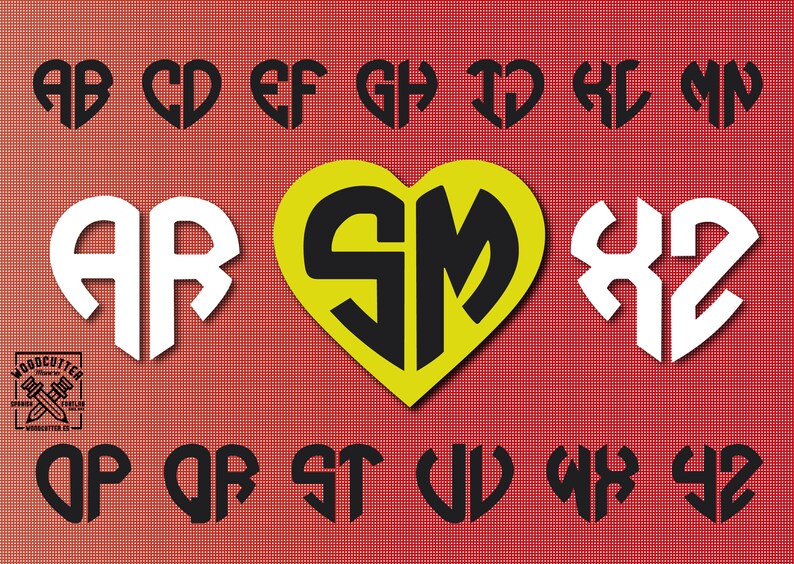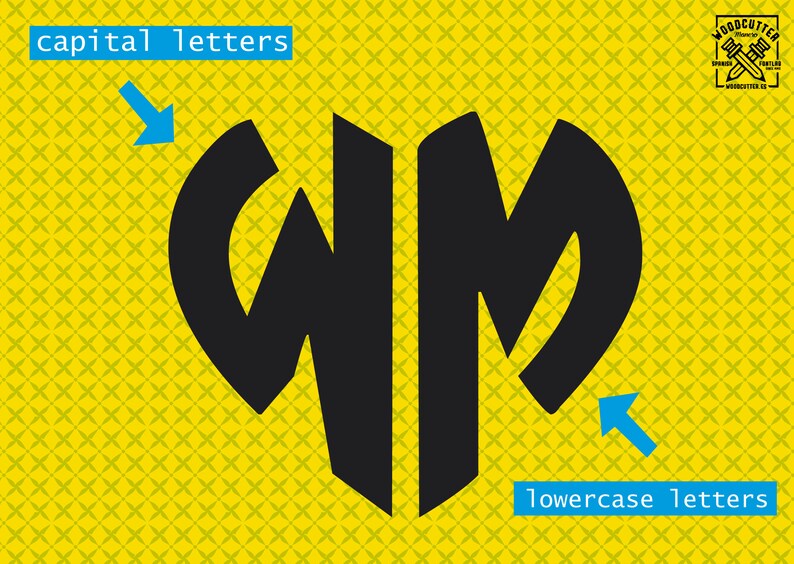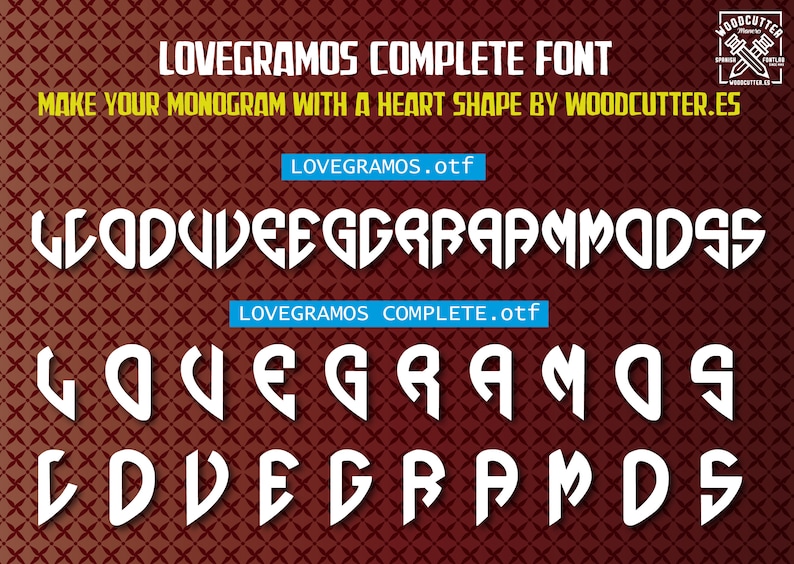
LOVEGRAMOS complete Font , Make your Monogram with Heart Shape.
Lovegramos Font
2 fonts for Make your Monogram with Heart Shape.
To create your heart-shaped monogram use "LOVEGRAMOS complete" font and:
The letter on the left side writing in Uppercase
The letter on the right side writing in lower case